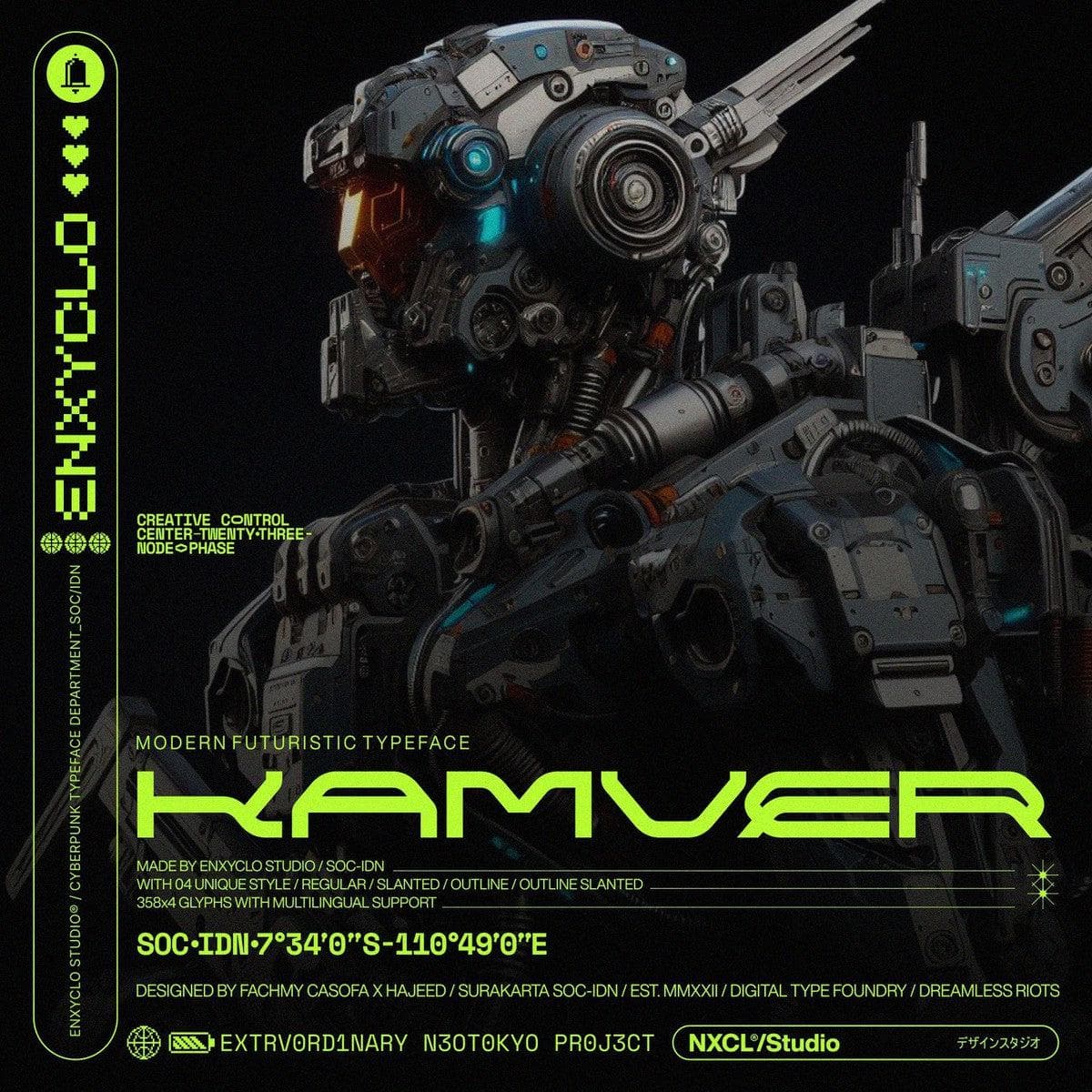
<p><strong>NCL KAMVER</strong> is not your ordinary font. It’s a modern cyberpunk futuristic techno space font that takes your creativity to the next level. Its futuristic aesthetics bring a whole new dimension to your designs, making them stand out. Whether you’re working on a website, poster, logo, or any other project, this font adds that extra touch of innovation and sophistication.</p><p><strong>FEATURES</strong></p><ul><li><p>4 Style: Regular, Slanted, Outline, Outline Slanted</p></li><li><p>Contains 358 Glyphs</p></li><li><p>Uppercase & Lowercase</p></li><li><p>Numeral, Punctuation & Symbols</p></li><li><p>Alternates</p></li><li><p>Multilingual Support</p></li></ul><p></p>